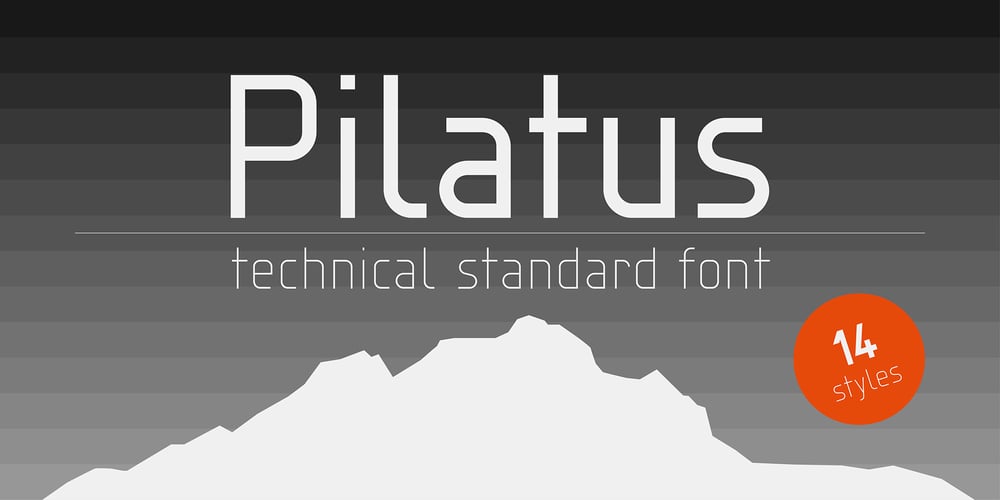
Pilatus Font Family was designed by Milan Rohrer and published by Milan Rohrer Studio. Pilatus contains 14 styles and family package options. The Pilatus font is a sans-serif standard technical font based on the ISO 3098 standard. The standard was developed for a good reading when reducing technical plans on films. The font follows clear rules and geometric proportions.